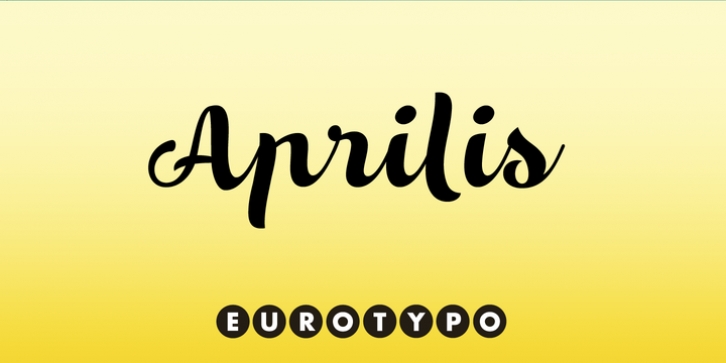
Are you looking for a new casual and organic script font? Please, take a look to the Aprilis! In times of early Roman calendar, “Aprilis” followed and preceded “Martius” “Maius” when spring came, was green nature and flowers burst into colours to greet the sun. And Aprilis font was conceived in April...
The Aprilis font is the perfect blend of elegant and casual. (It is best used in OpenType-aware software).
With the total number of 625 glyphs, is equipped with plenty of OpenType features. Uppercase letters can alternate between at least two different forms and lowercase letters have leastways four choices more to avoid repetition. These effects include start and end forms of lowercase letters, which are automatically substituted in at beginnings or ends of words. To activate the optional glyphs you may click on Swash, Contextual, Standard Ligatures, Stylistic or Discretionary Ligatures buttons in any OpenType savvy program or manually choose the characters from Glyph Palette. Also, there’s a set of 50 ornaments designed to support the font (access the ornaments through the Glyph Palette).
The Aprilis font might be the choice to use on creating headlines, logos & posters for branding and packaging purposes. Hope you enjoy.